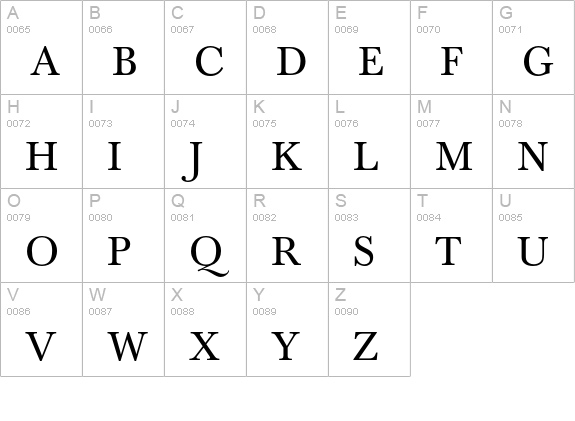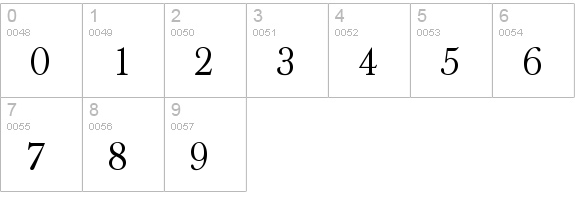
Berthold Baskerville Regular Font Details
Berthold Baskerville Regular is the standard, neutral variant in the Berthold typeface family \xE2\x80\x94 well suited to general body text, paragraphs, and standard typographic work.
Berthold Baskerville Regular is a timeless and elegant serif font that exudes sophistication and class. Its classic design, with its delicate serifs and graceful curves, makes it perfect for a wide range of design projects, from print materials to digital creations. The versatility of Berthold Baskerville Regular allows it to be used for both body text and headlines, adding a touch of refinement to any design. What's even better is that Berthold Baskerville Regular is available for free download at FontsMarket.com. This means that you can easily access this beautiful font without any cost, making it a valuable addition to your font collection. Whether you're working on a professional project or a personal creation, Berthold Baskerville Regular is sure to elevate your design with its timeless beauty and classic appeal. Download it today and add a touch of elegance to your next project.